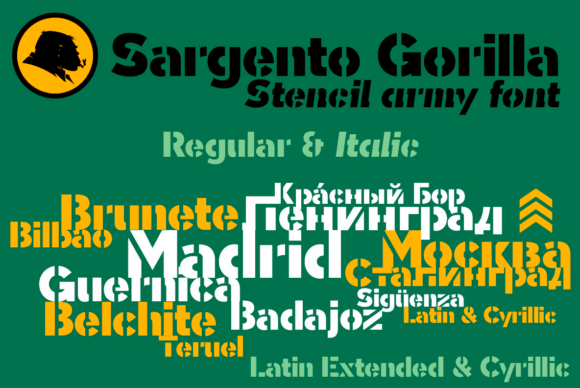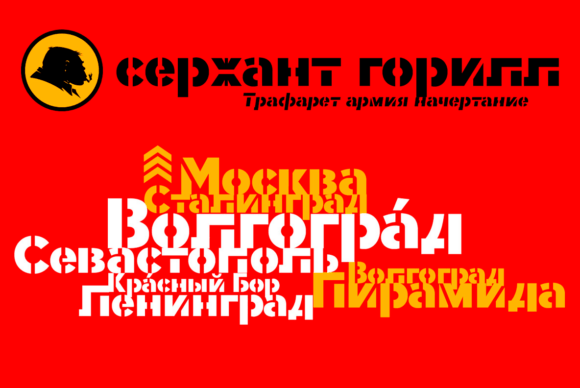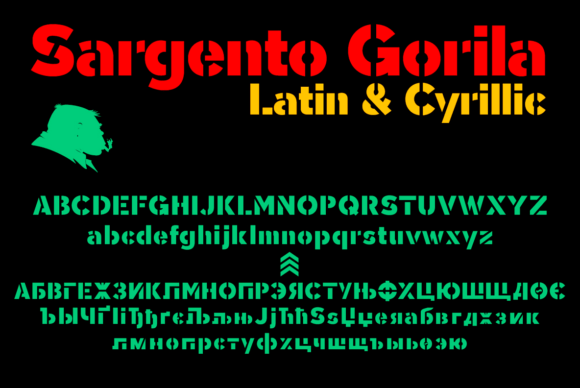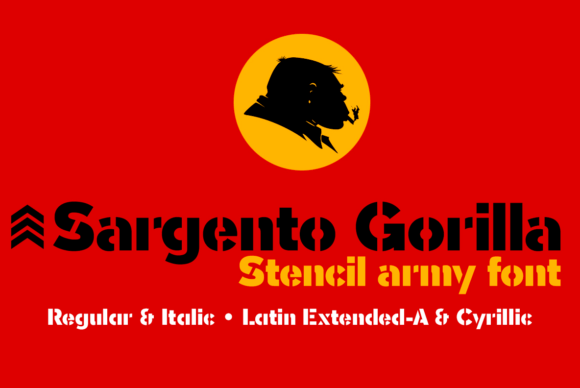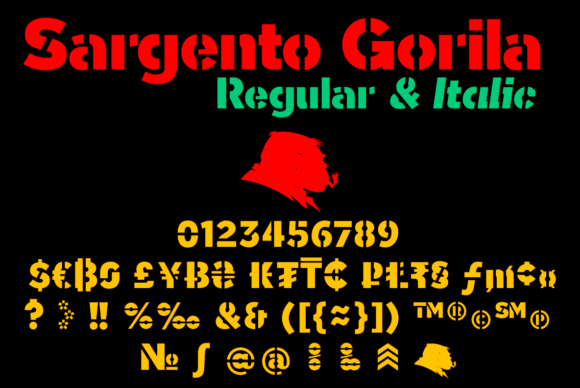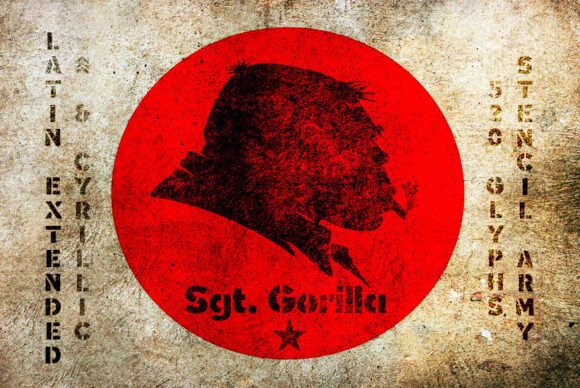
Introduction to Sargento Gorila Font Font
Fonts play a crucial role in design, and the Sargento Gorila Font font is a typeface that brings both character and versatility to any project. Whether you’re working on a branding project, a website, or a print design, the Sargento Gorila Font font offers a unique style that can elevate your work.
Sergeant Gorilla is a very thick, military-style sans-stencil typeface featuring the Cyrillic alphabet.
Sgt Gorilla mimics the stencils used to write signs on boxes, sacks, and walls.
Key Features of Sargento Gorila Font Font
Why Choose Sargento Gorila Font Font?
The Sargento Gorila Font font is more than just a typeface – it’s a design tool that helps you communicate your message with style and clarity. Its unique character set and versatile design make it suitable for a wide range of applications, from elegant invitations to bold headlines.
With its carefully crafted letterforms and balanced proportions, the Sargento Gorila Font font ensures readability and visual appeal across all mediums.
What makes Sargento Gorila Font font special?
The Sargento Gorila Font font stands out with its unique design, exceptional readability, and versatility across various design applications.